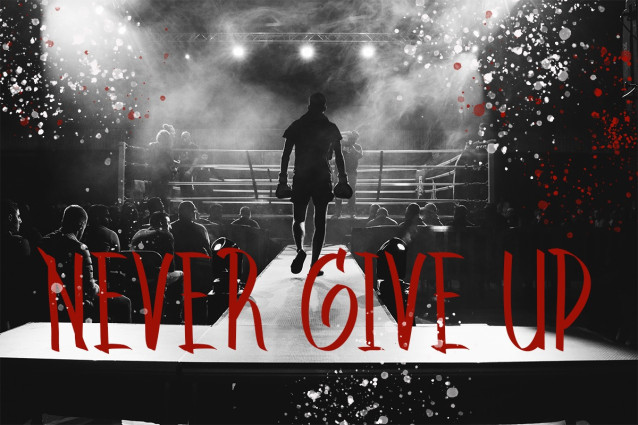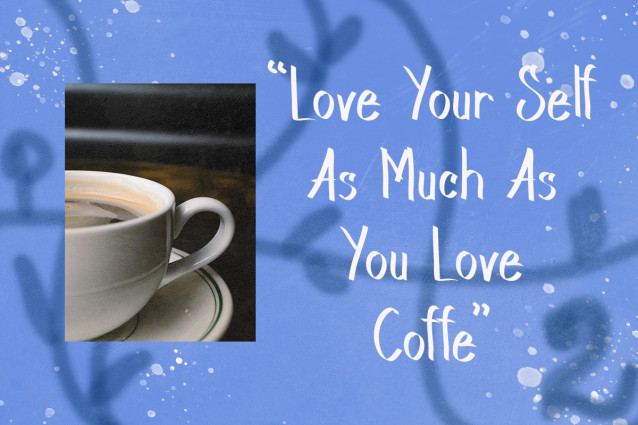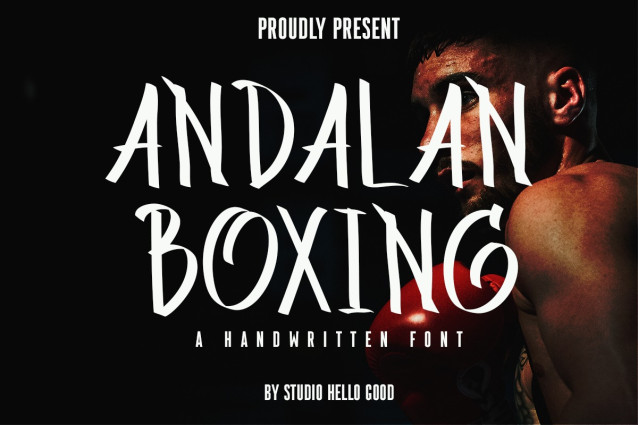
Andalan Boxing Font
Anddalan Boxing Font, a captivating handwritten font that effortlessly blends elegance with a touch of playful charm. Crafted with meticulous attention to detail, Anddalan Boxing brings a unique and distinctive personality to your projects, making it an ideal choice for books, cartoons, and movies seeking a handcrafted aesthetic.
With its organic strokes and fluid lines, Anddalan Boxing captures the essence of handwritten expression, adding warmth and authenticity to your text. Whether you’re working on a whimsical children’s book, a dynamic comic strip, or a lively movie title, this font injects a sense of character and personality that resonates with readers and viewers alike.
The versatility of Anddalan Boxing shines through in its ability to adapt seamlessly to various creative contexts. Its playful demeanor makes it an excellent choice for projects targeting a younger audience, while its handwritten sophistication ensures a timeless appeal for a more mature audience.
Incorporate Anddalan Boxing into your design toolkit to infuse your creations with a delightful handwritten charm. Enhance the visual storytelling of your projects and let Anddalan Boxing be the expressive voice that brings your words to life. Whether used in titles, captions, or body text, this font is sure to leave a lasting impression, making it a must-have for anyone seeking a handwritten style that effortlessly blends fun and elegance.